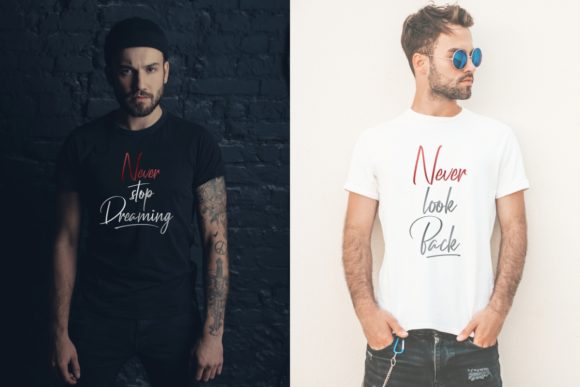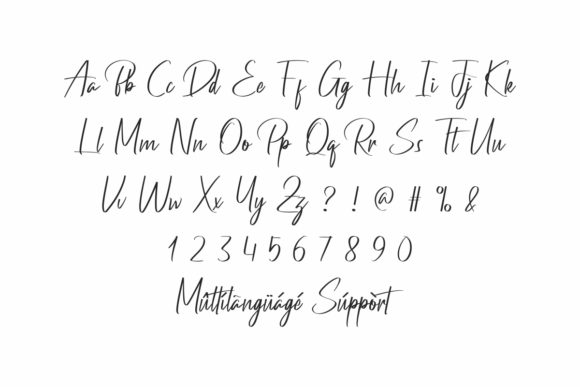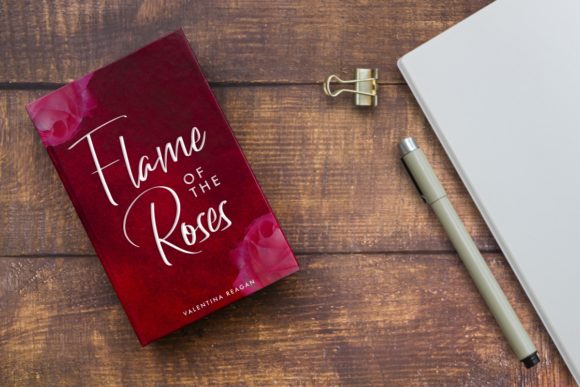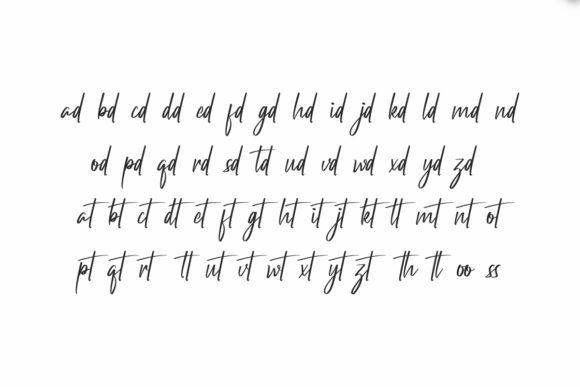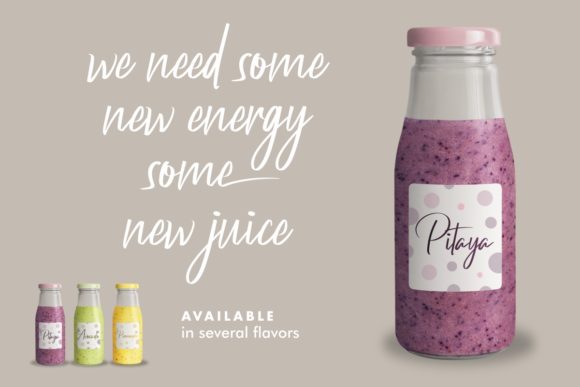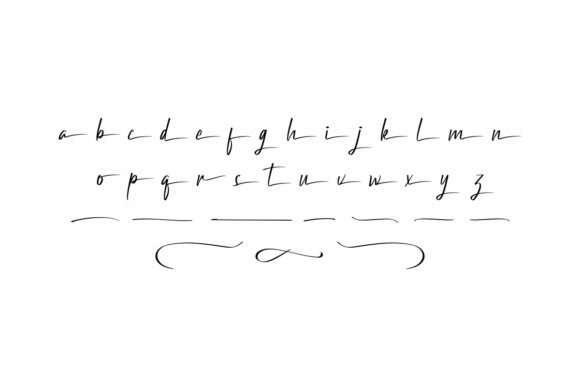
Introduction to Pandemi Font
Remember the moment when you finally found the perfect font for your creative project? The one that made all the difference and took your design to the next level? For designers, that moment is priceless. It’s the result of hours spent searching for the perfect high-quality design resource. And that’s exactly what the Pandemi Font offers – an elegant, flowing handwritten font that’s sure to make your projects shine.
With its distinct and timeless style, Pandemi Font is the perfect choice for designers who want to add a personal touch to their work. Whether you’re working on a logo, a brochure, or a social media graphic, this font is sure to make your design stand out. And the best part? It’s free to download, so you can experiment with it on your next creative project without breaking the bank.
Pandemi Font: A High-Quality Design Resource
Honest Review: Pandemi Font
I recently had the opportunity to work with the Pandemi Font, and I must say it’s been a game-changer for my design projects. This high-quality font is a valuable addition to any designer’s toolkit, offering a unique and creative way to express your ideas.
One of the standout features of the Pandemi Font is its transparent background, which makes it incredibly versatile and easy to use in a variety of creative projects. Whether you’re designing a logo, a brochure, or a website, this font is sure to add a touch of sophistication and elegance.
Here are some of the things that work well with the Pandemi Font:
- ✨ Unique and creative design
- ✨ High-quality and crisp typography
- ✨ Transparent background for easy use
However, I did encounter a few limitations when working with the Pandemi Font:
- ⚠️ Limited character set, may not be suitable for extended text
- ⚠️ May not be compatible with all operating systems
Overall, I’m thoroughly impressed with the Pandemi Font. Its unique design and high-quality typography make it a valuable resource for any designer. While there are a few limitations to be aware of, I would highly recommend this font for any creative project.
Pandemi Font
The Pandemi Font is a high-quality design resource ideal for various creative projects. Its transparent background makes it easy to incorporate into different backgrounds and designs.
Tips for Getting the Most Out of the Pandemi Font
To get the most out of the Pandemi Font, use it in combination with other design elements, such as images and graphics. Experiment with different font sizes, colors, and arrangements to create visually appealing designs.